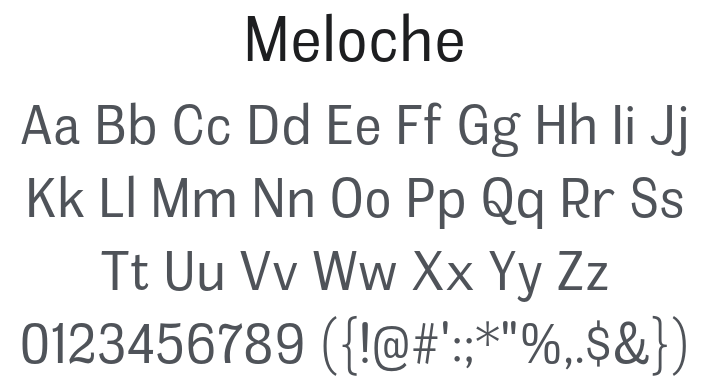
Meloche Font
About Meloche
Meloche is a French grotesque typeface that blends Belle Époque grace with modern clarity. Its refined stroke modulation and angled terminals echo 19th-century Parisian lettering, lending warmth and character to a form built for contemporary use. The result is a sans-serif that feels both cultivated and human, elegant in headlines, effortless in text.
With seven weights, matching obliques, and twenty built-in fleur-de-lis ornaments (accessible via simple shortcodes), Meloche offers flexibility without complexity. It handles Latin, Greek, Cyrillic, and Vietnamese scripts with equal finesse, making it a natural fit for global publishing, boutique branding, and cultural identity systems. From refined packaging to literary covers, Meloche carries the poise of a classic reborn...rooted in history, composed for the modern world.